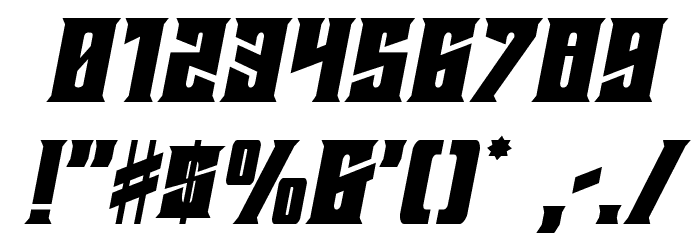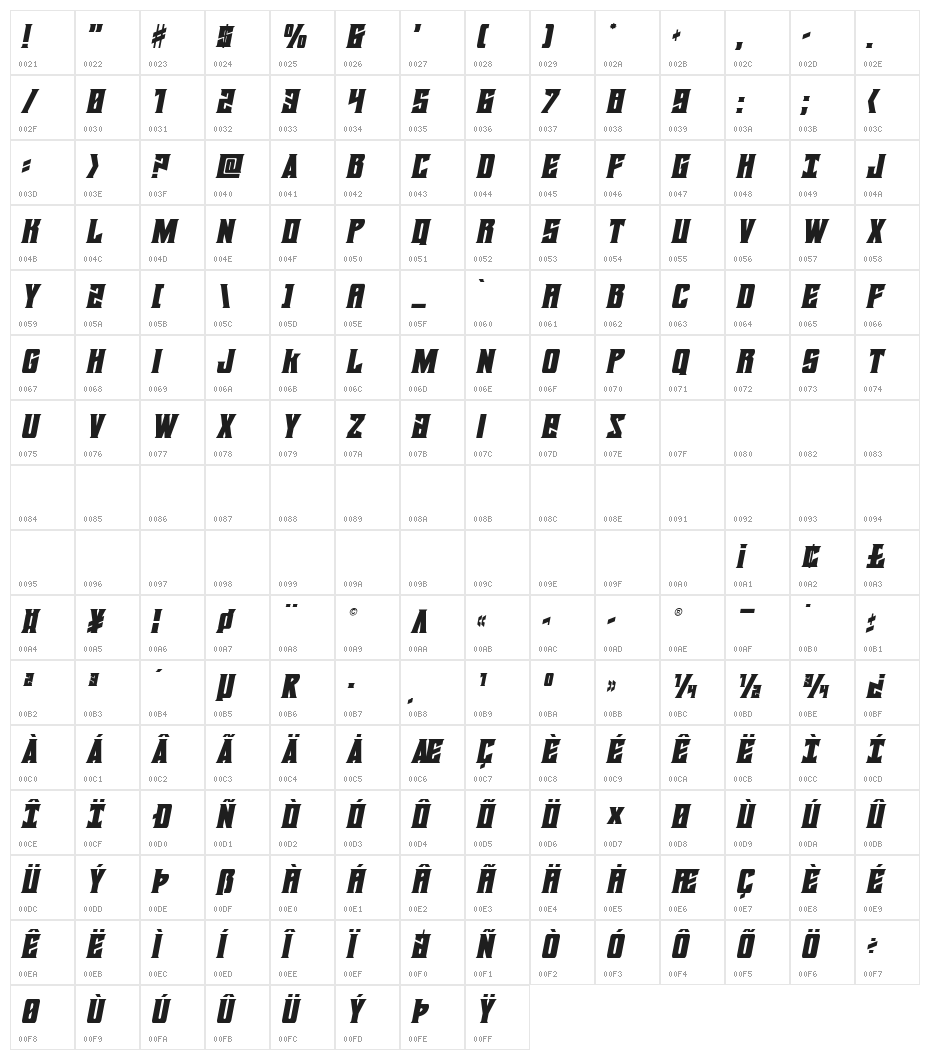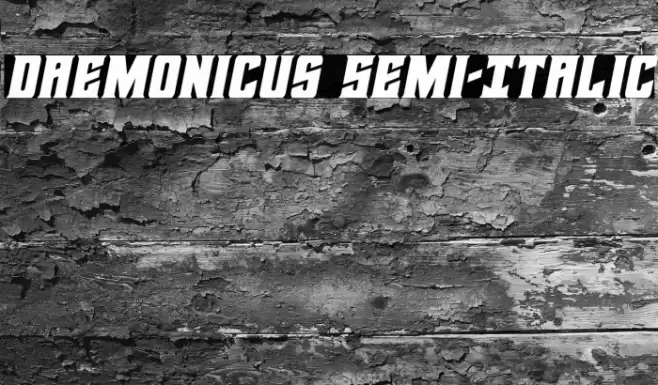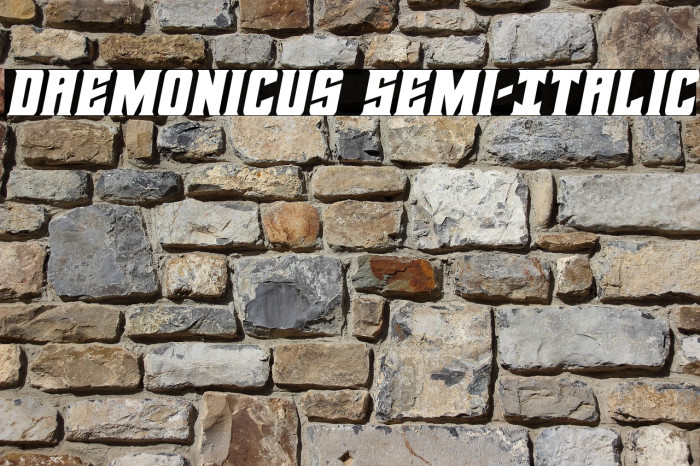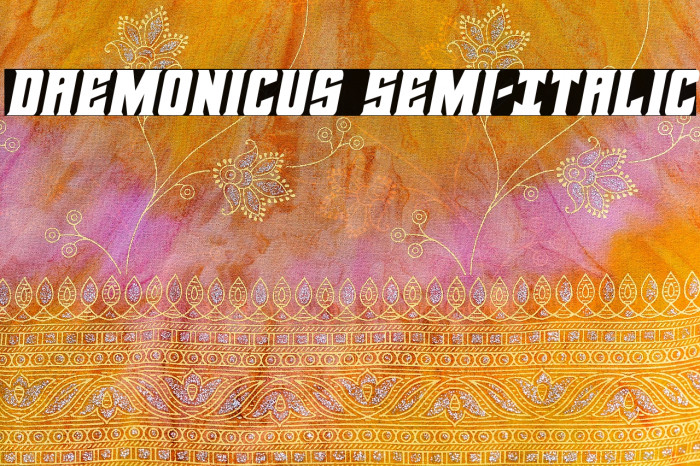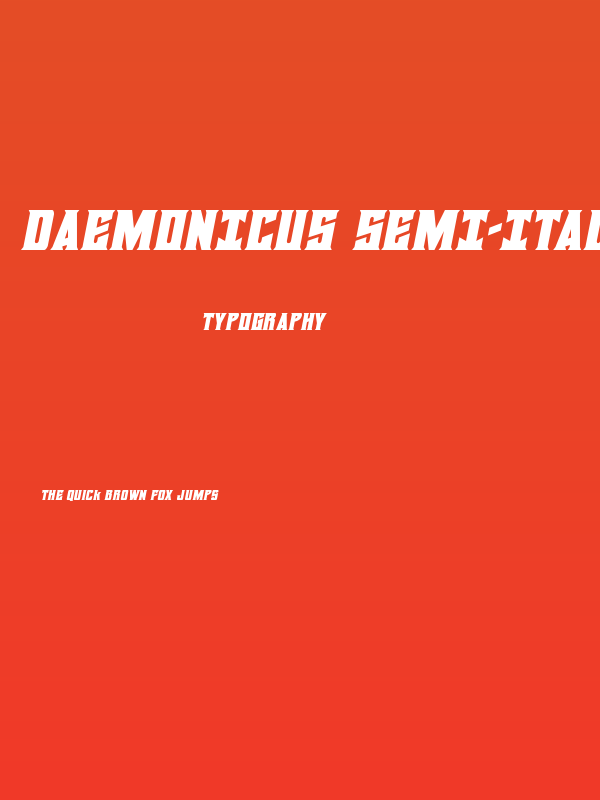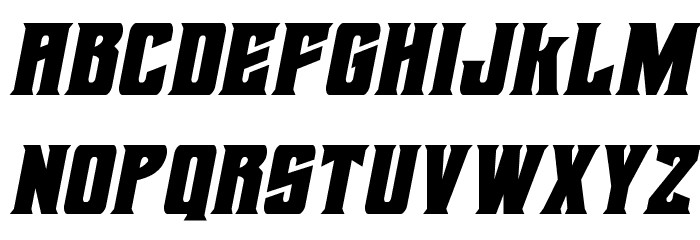
Daemonicus Semi-Italic Font
Daemonicus Semi-Italic Description
This font features a bold and dynamic design with sharp, angular edges and a slightly italicized slant. The characters are robust and impactful, making them ideal for attention-grabbing headlines or logos. The uppercase and lowercase letters maintain a consistent style, with a unique flair in the diagonal strokes and pointed serifs. Numbers and special characters are equally bold, ensuring a cohesive look across all text elements. The overall aesthetic is modern and edgy, suitable for projects that require a strong visual presence.
Overall StyleModern, Edgy
Proposed ProjectsIdeal for use in branding, posters, video game titles, and any project needing a bold, impactful typeface.